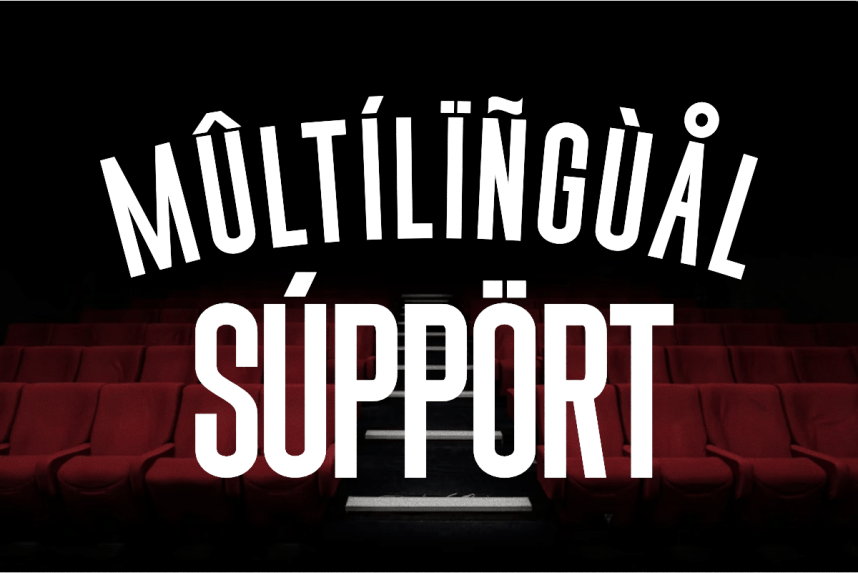
Movie Cover Font is an ultra condensed sans serif font crafted for bold cinematic titles and modern design projects. With its tall, sleek, and dramatic letterforms, this font is ideal for movie posters, film covers, streaming thumbnails, magazine headlines, advertising campaigns, and eye-catching branding projects. Its condensed style allows you to maximize space while maintaining a strong visual impact, making it perfect for both digital and print use.